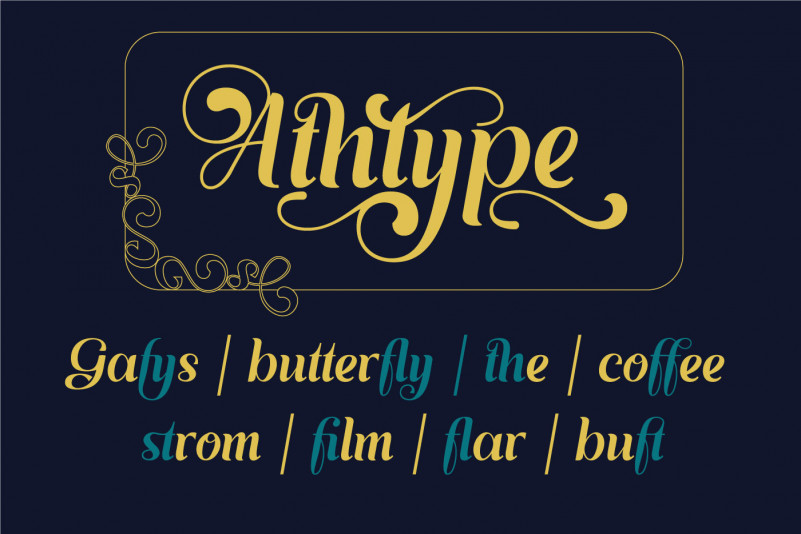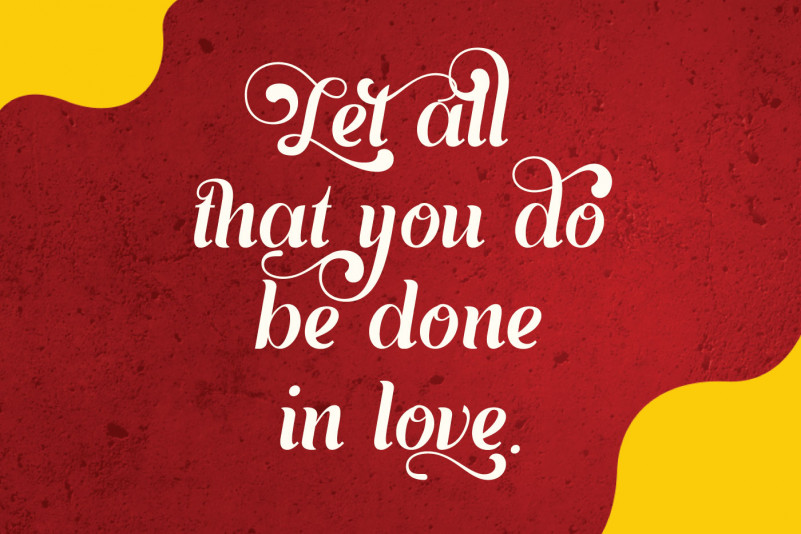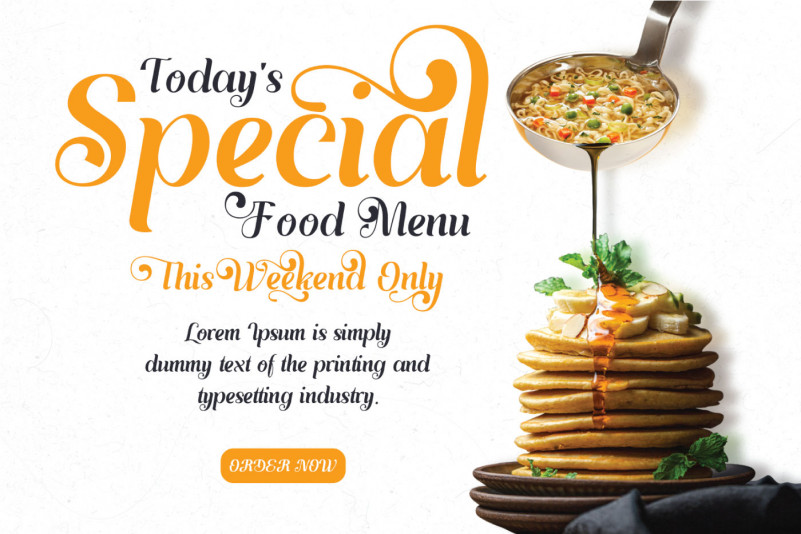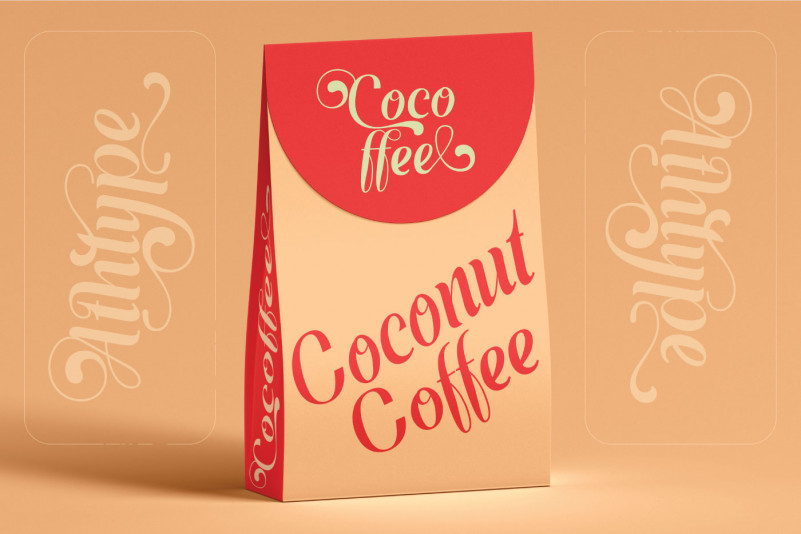
Ayulia Molga Font
Ayulia Molga Font – This font features a classic and elegant style, perfect for: The concept of font design for the food, drink and cake industry leads to an energetic and creative youth market processing the taste and color of food.